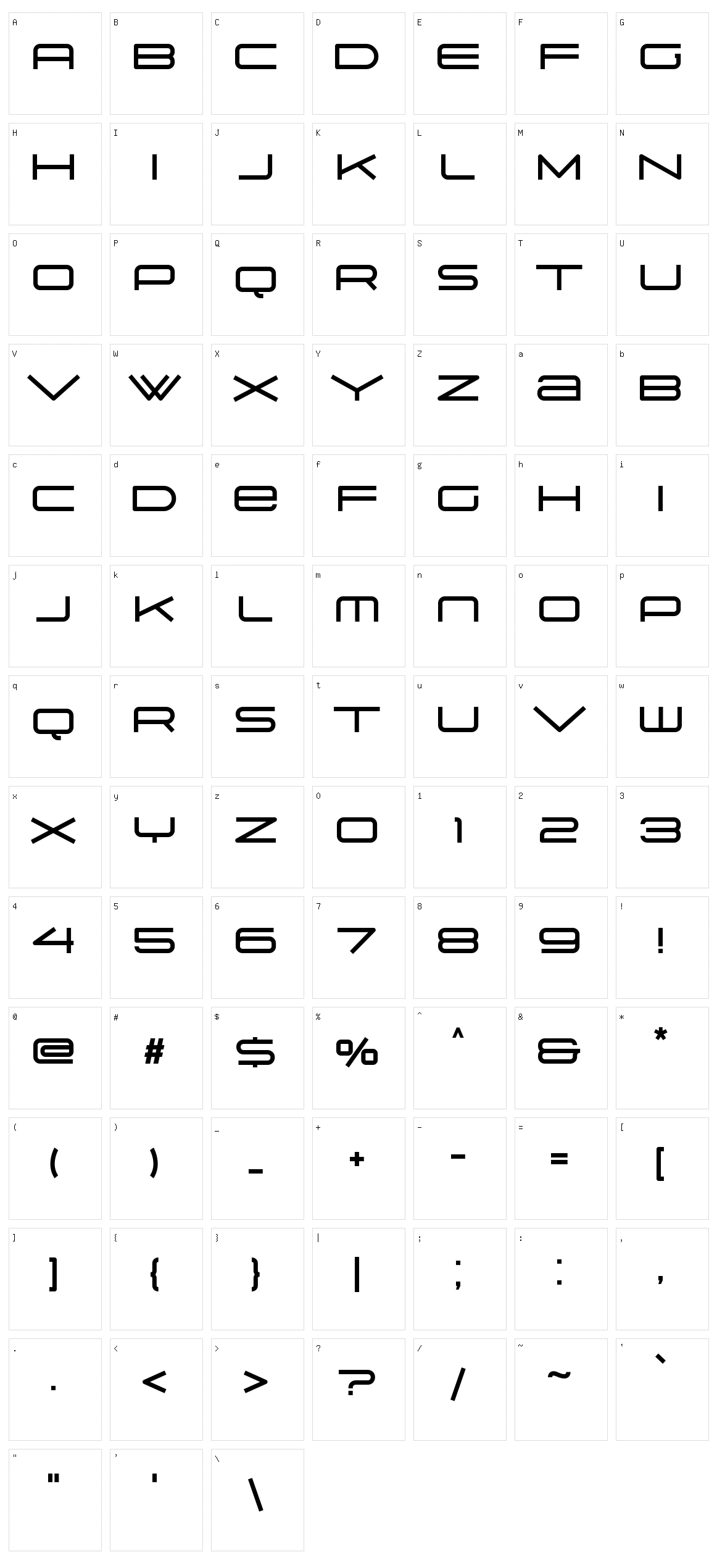
Suissnord
Suissnord is a simple yet elegant display font with curvaceous styling. The lines are sleek and slender keeping the same weight throughout the entire alphabet. While the majority of characters are uppercase, you'll find lowercase versions of others like a, e, and n. Basic Latin, extended latin,
European accents, diacritics, and basic punctuation are included. Use Suissnord for a magazine, fashion ad, or company logo.